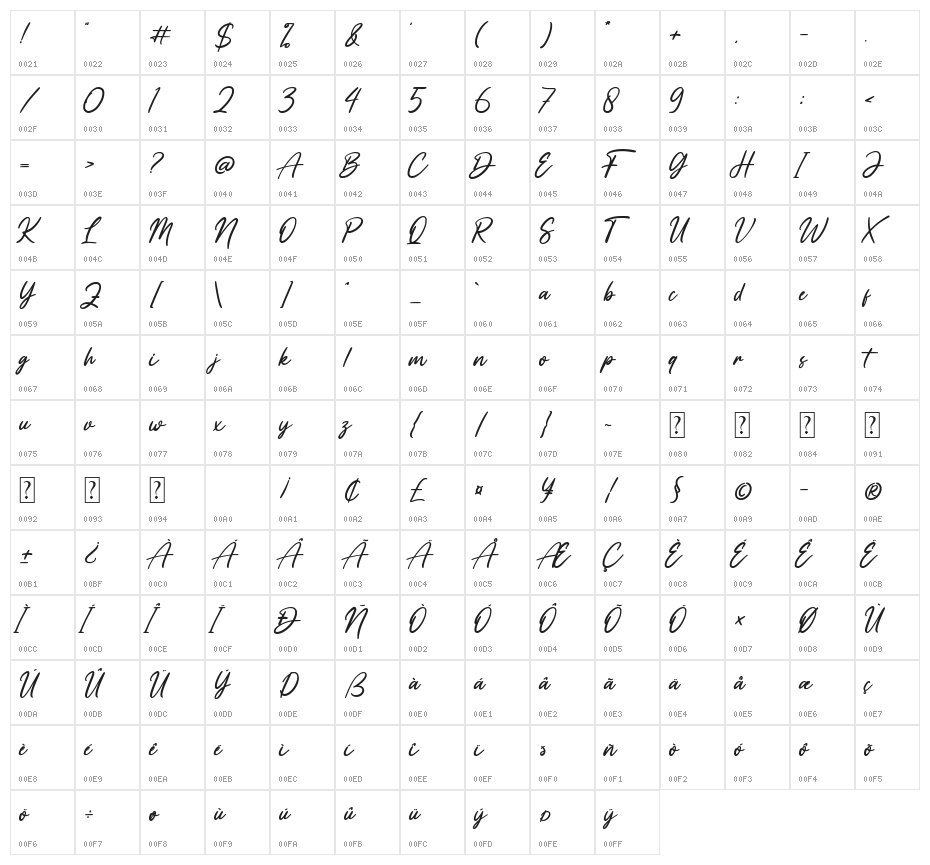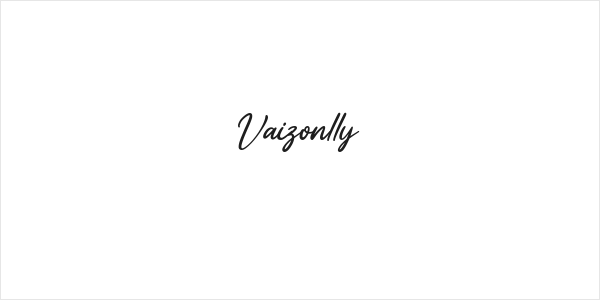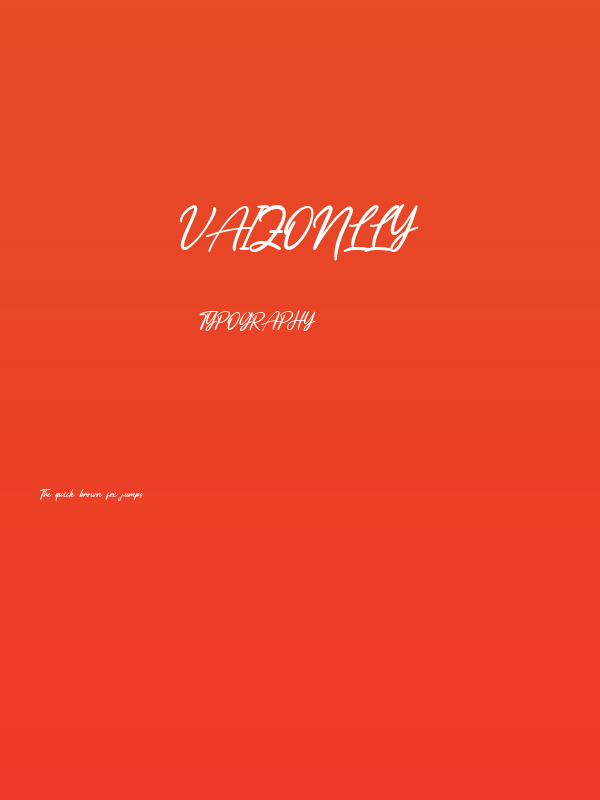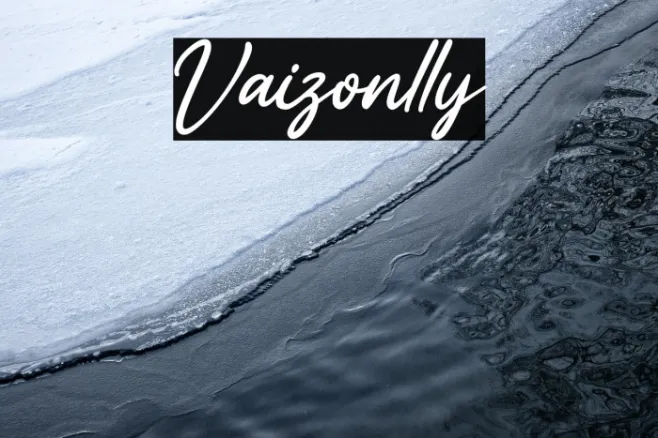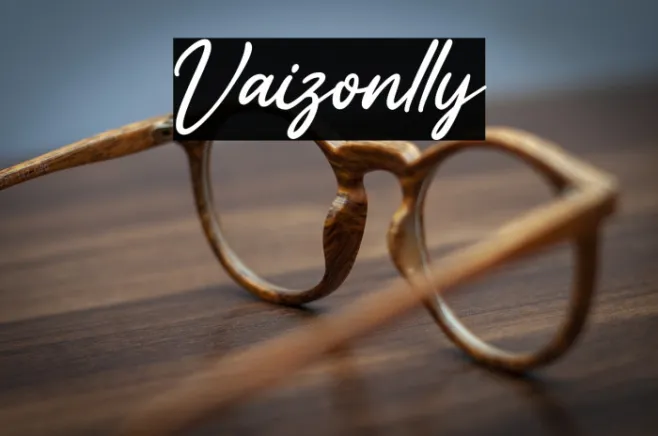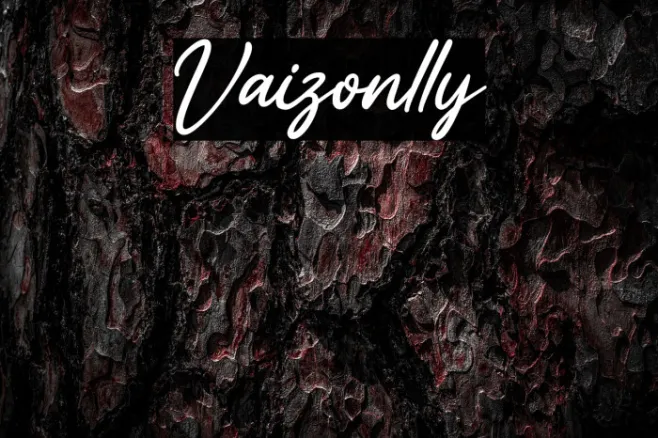
Vaizonlly Font
Vaizonlly Description
This font features a flowing, cursive style with elegant, sweeping strokes that give it a handwritten appearance. The uppercase letters are bold and dynamic, with a slight slant that adds to the fluidity of the design. The lowercase letters maintain a consistent style, complementing the uppercase with their smooth curves and connected strokes. Numbers and special characters are designed to match the overall aesthetic, ensuring a cohesive look across all text. The font's playful yet sophisticated style makes it suitable for a variety of creative projects.
| Proposed Projects | Ideal for wedding invitations, greeting cards, branding, and logo design where a personal touch is desired. |